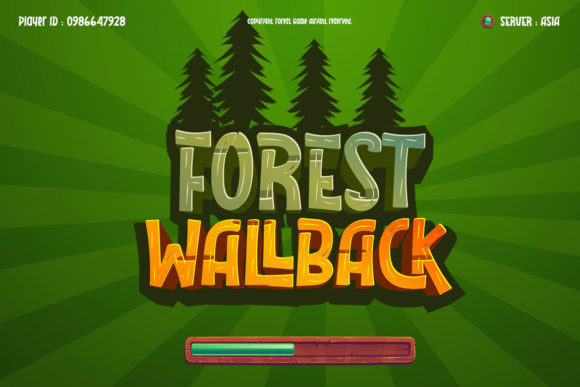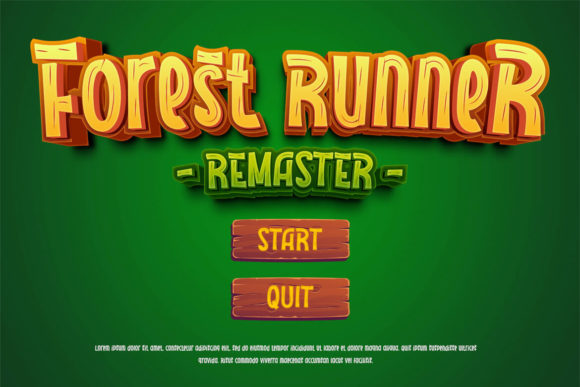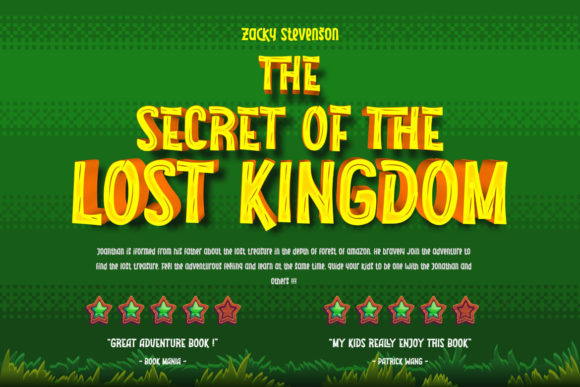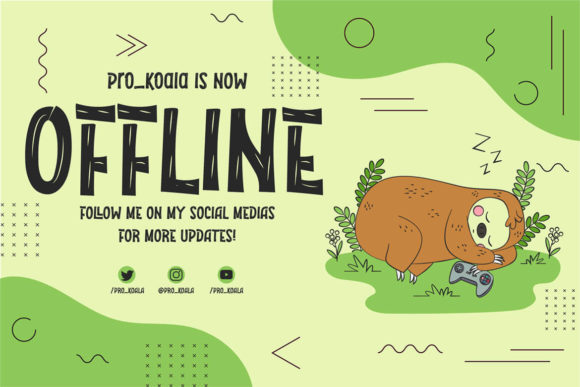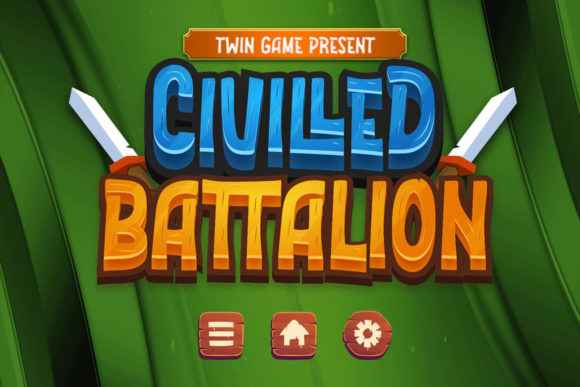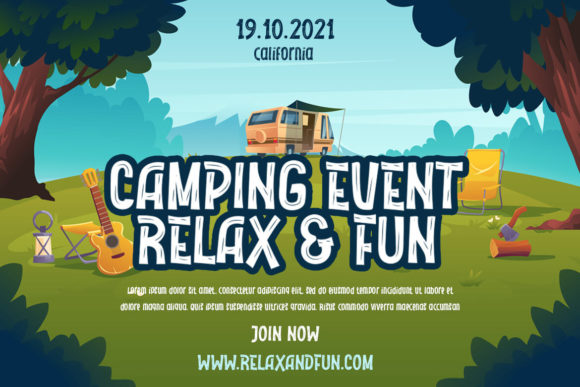
Introducing Backeth Font: Add a Touch of Joy to Your Designs
Are you looking for a font that can add a playful and fun touch to your designs? Look no further than Backeth Font! This display font is perfect for designers and crafters who want to create cartoon-related designs, children’s games, quotes, titles, brand names, book covers, posters, and more. In this article, we’ll dive into the features and benefits of Backeth Font and explore how it can elevate your creative projects.
What is Backeth Font?
Backeth Font is a playful and fun display font designed to bring a touch of joy to your designs. Its unique and quirky style makes it perfect for projects that require a lighthearted and humorous approach. Whether you’re creating a children’s book, a cartoon, or a poster, Backeth Font is sure to capture the attention of your audience.
Key Features of Backeth Font
- Playful and Fun Style: Backeth Font has a unique and playful style that’s perfect for designs that require a touch of joy.
- Display Font: Backeth Font is a display font, making it perfect for titles, headings, and other prominent text elements.
- Cartoon-Related Designs: Backeth Font is ideal for cartoon-related designs, including children’s games, animations, and comics.
- Easy to Read: Despite its playful style, Backeth Font is easy to read, making it perfect for body text and captions.
- Versatile: Backeth Font can be used for a wide range of projects, from book covers to posters, and from titles to brand names.
Benefits of Using Backeth Font
So, why should you choose Backeth Font for your next project? Here are just a few benefits of using this amazing font:
- Adds a Touch of Joy: Backeth Font adds a playful and fun touch to your designs, making them more engaging and attention-grabbing.
- Increases Creativity: Backeth Font’s unique style can inspire creativity and help you think outside the box.
- Perfect for Children’s Projects: Backeth Font is ideal for children’s projects, including books, games, and educational materials.
- Easy to Pair with Other Fonts: Backeth Font pairs well with other fonts, making it easy to create a cohesive and visually appealing design.
How to Use Backeth Font
Using Backeth Font is easy! Here are a few tips to get you started:
- Use it as a Display Font: Backeth Font is perfect for display text, including titles, headings, and captions.
- Pair it with Other Fonts: Backeth Font pairs well with other fonts, so don’t be afraid to experiment and find the perfect combination.
- Experiment with Colors: Backeth Font looks great in a variety of colors, so don’t be afraid to get creative and try out different color schemes.
In conclusion, Backeth Font is a playful and fun display font that’s perfect for designers and crafters who want to add a touch of joy to their designs. With its unique style, versatility, and ease of use, Backeth Font is sure to become a favorite in your font collection. Whether you’re creating cartoon-related designs, children’s games, quotes, titles, brand names, book covers, posters, or just any creation that requires a touch of joy, Backeth Font is a great choice. So why wait? Download Backeth Font today and start creating!